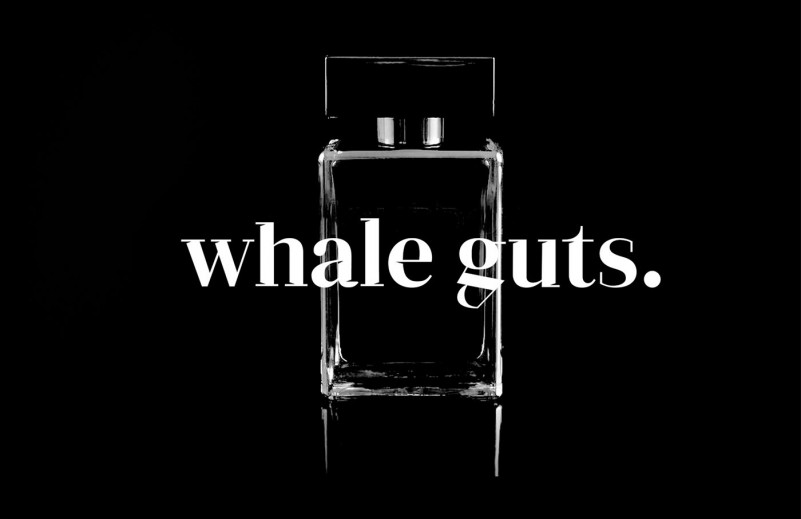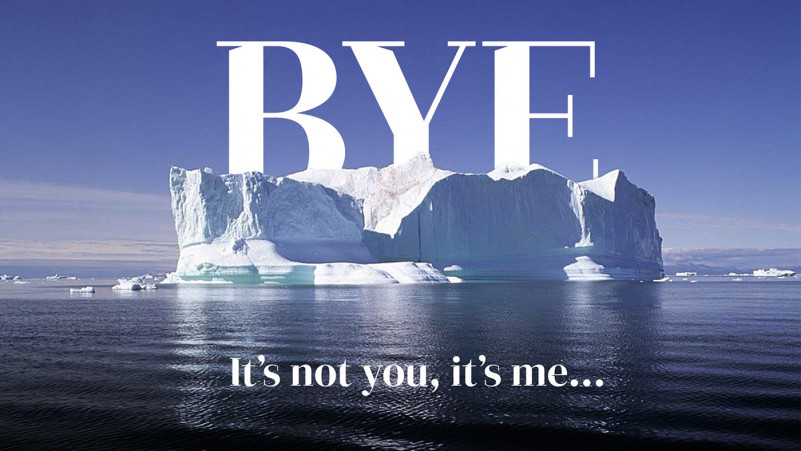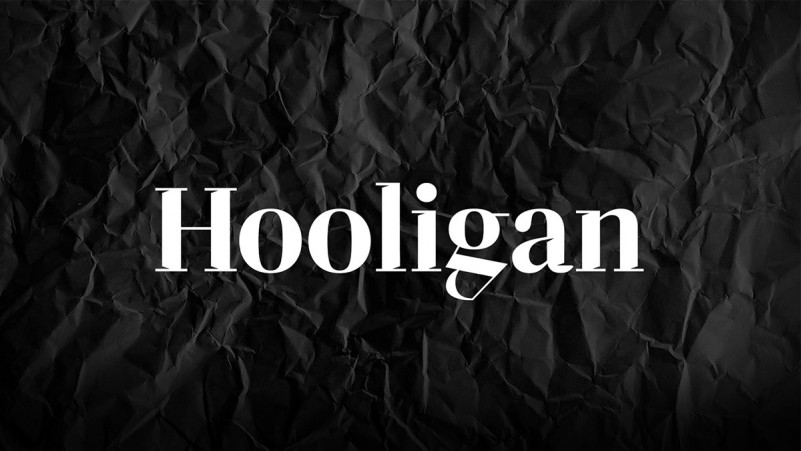
Hooligan Font
Hooligan Serif Font
It’s a modern typeface created by Bódog Barnabás with an elegant style. This font has a thick and thin shape, making this font look unique but doesn’t leave an elegant impression. This font is especially suitable for logos, invitations, novels, books, magazines, labels, greeting / wedding cards.